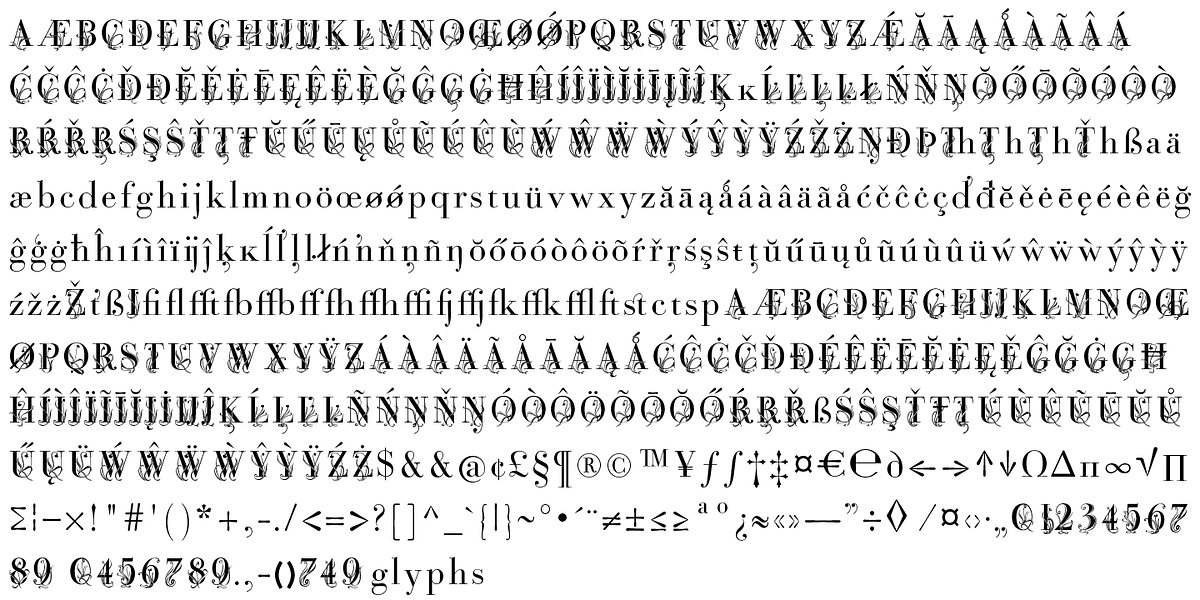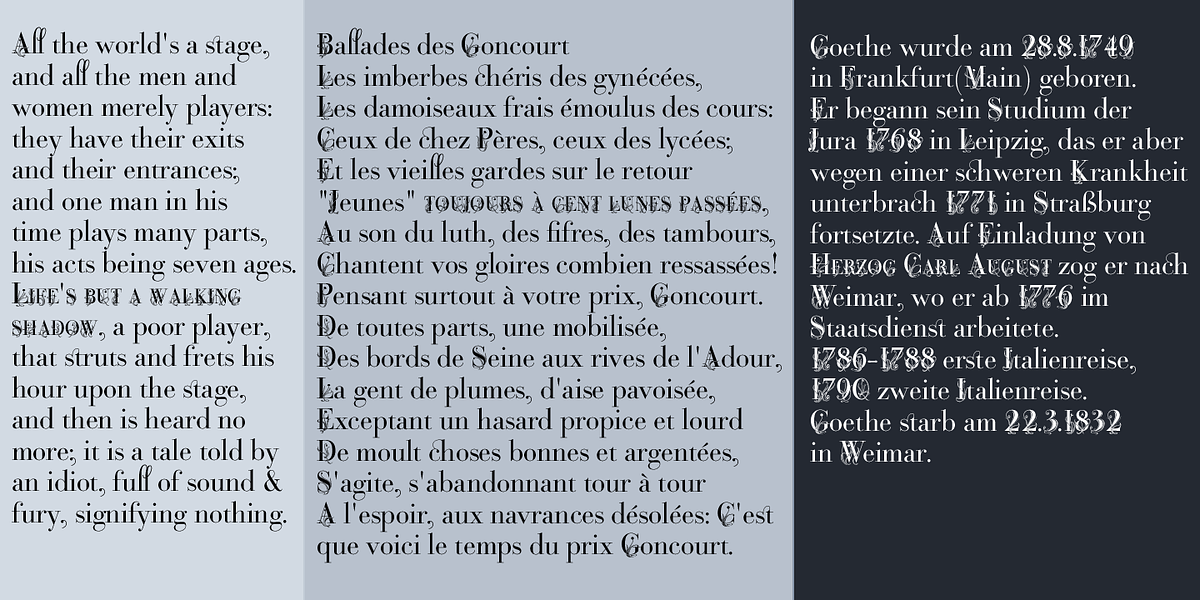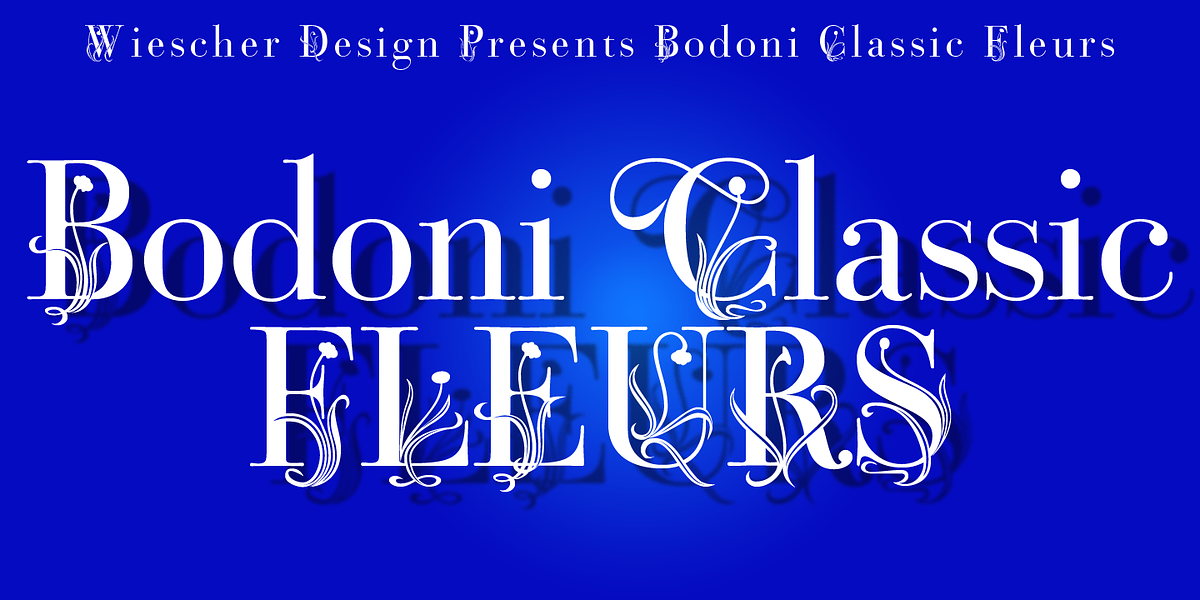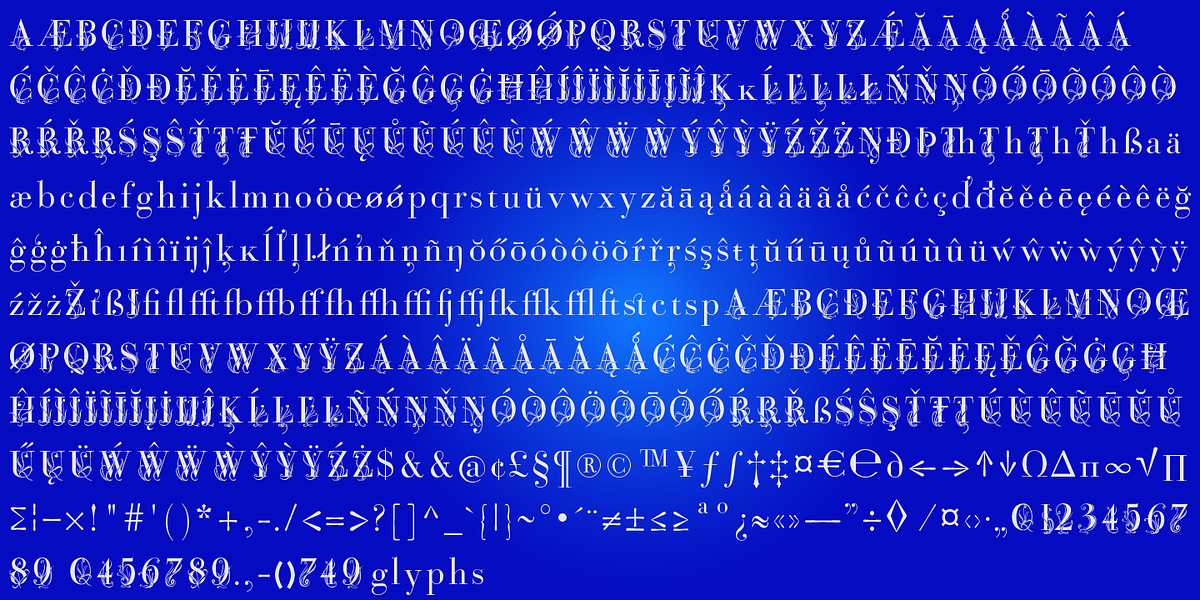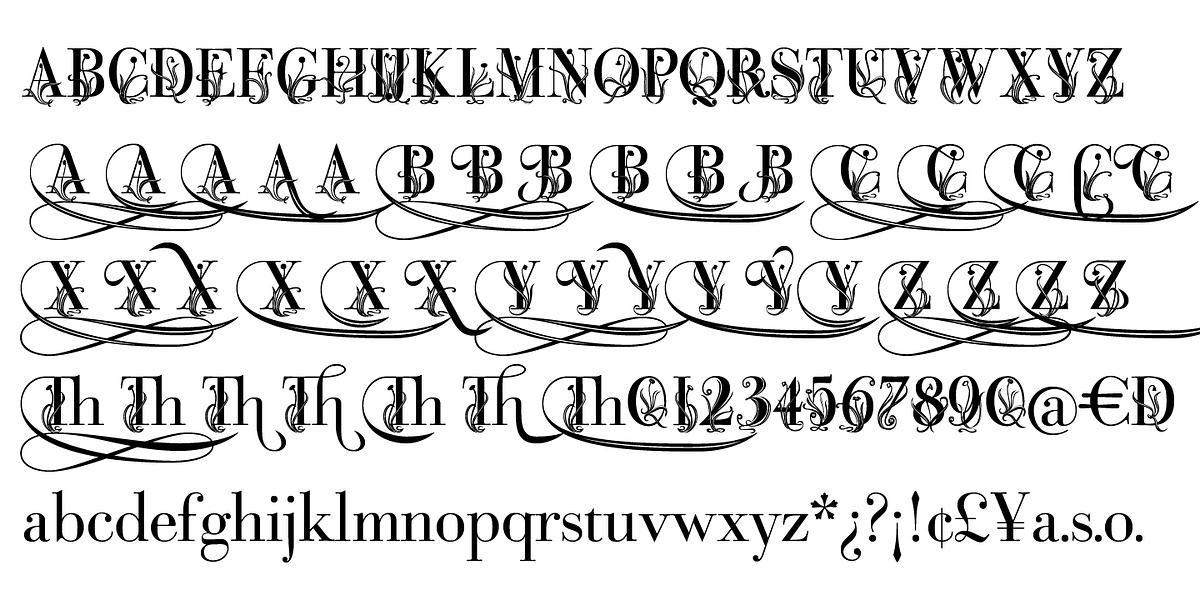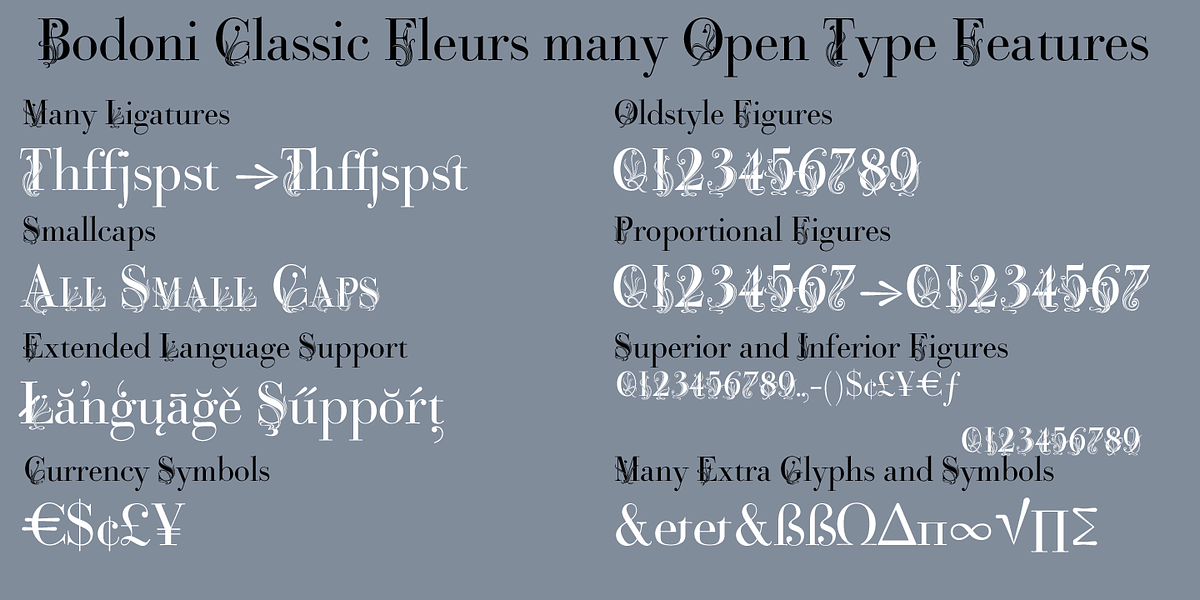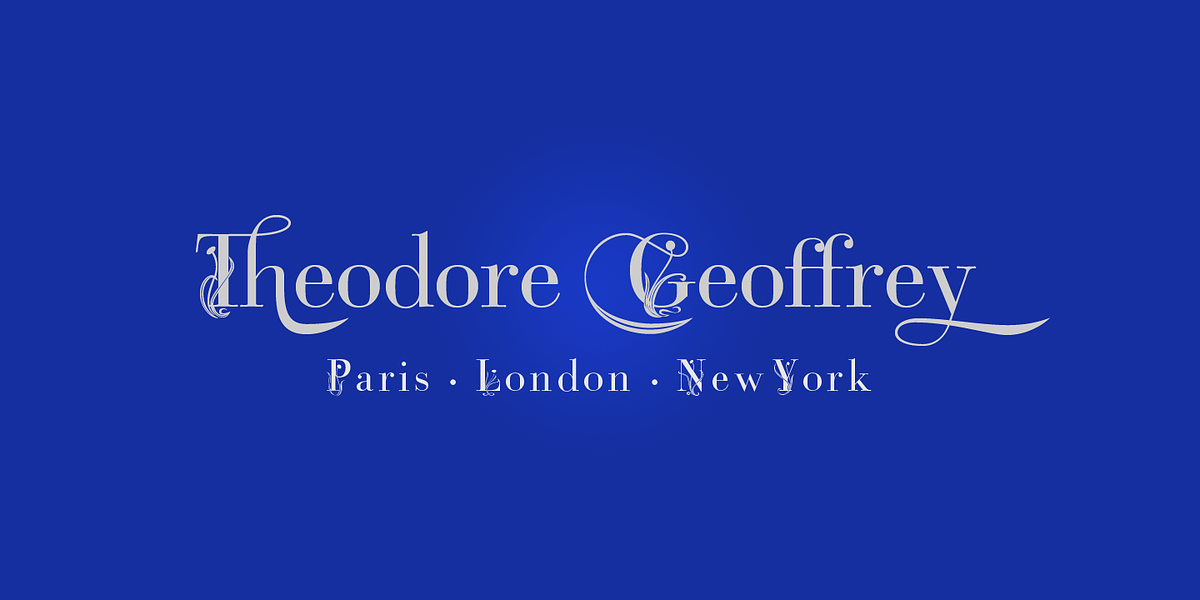
Bodoni Classic Fleurs
Bodoni Classic Fleurs is a display serif font characterized by its elegant appearance and ornate details. It features swashed capitals and numerous alternate glyphs for various languages, making it suitable for headlines, branding materials, and invitations where a touch of classic sophistication is desired.